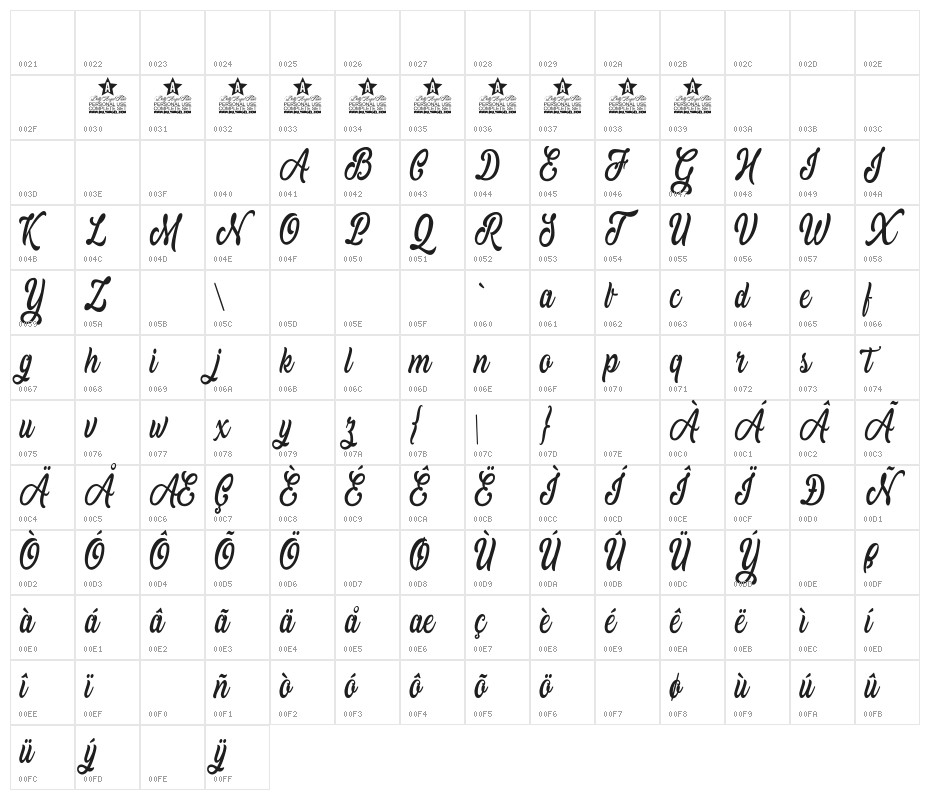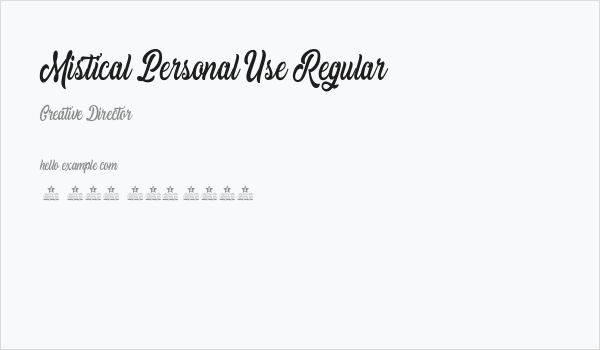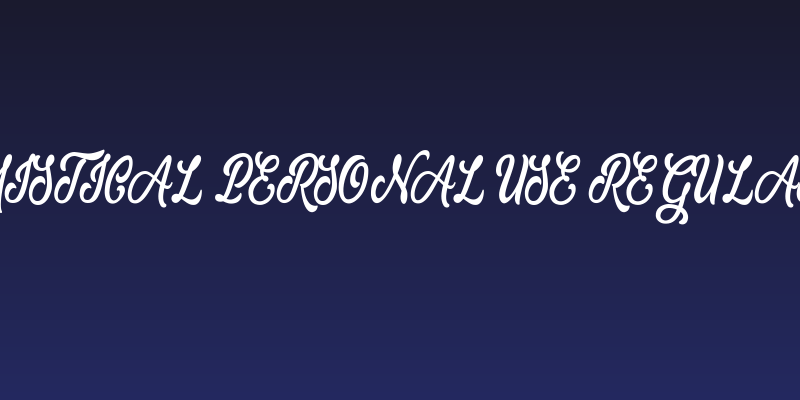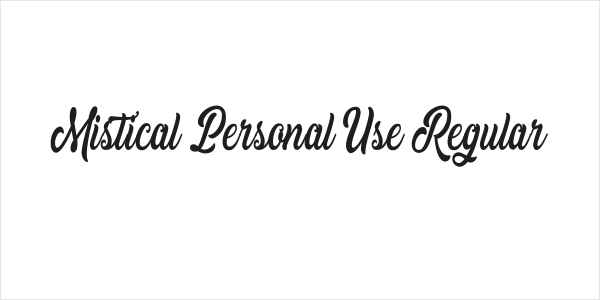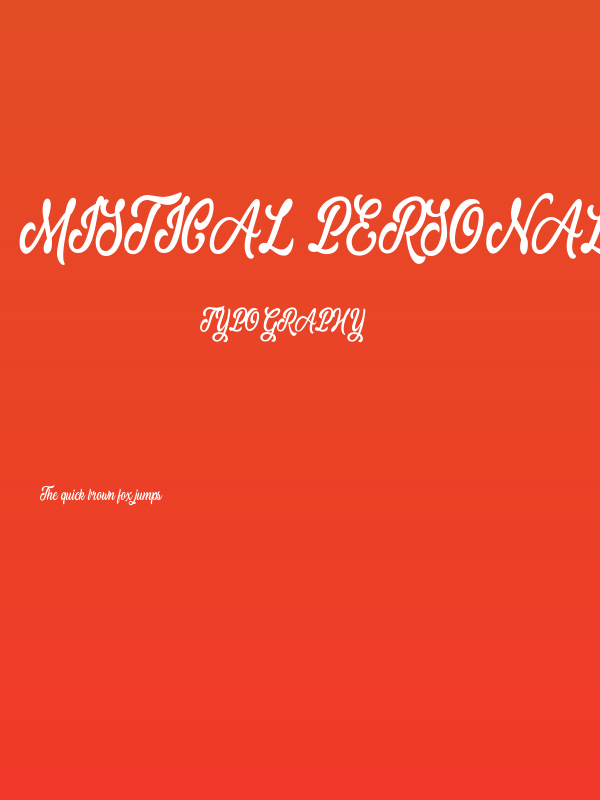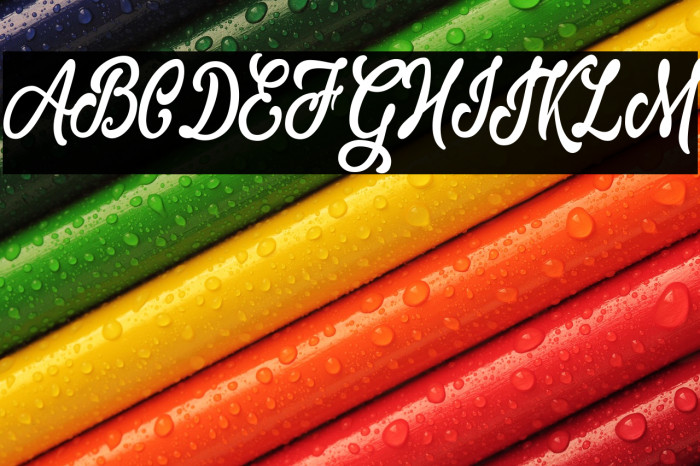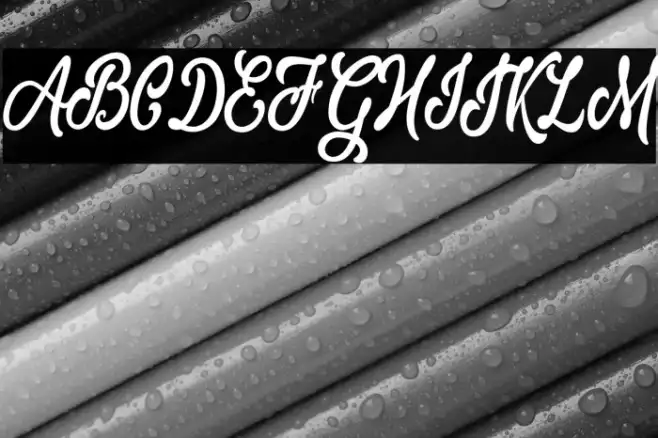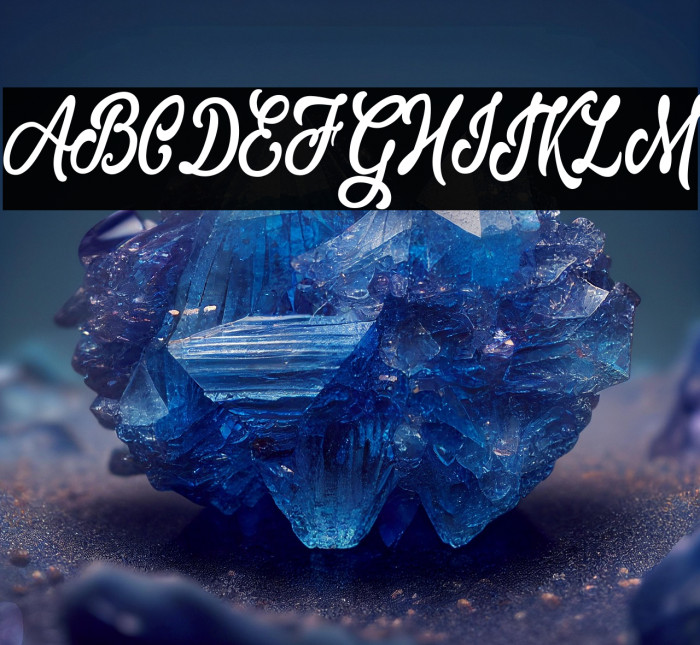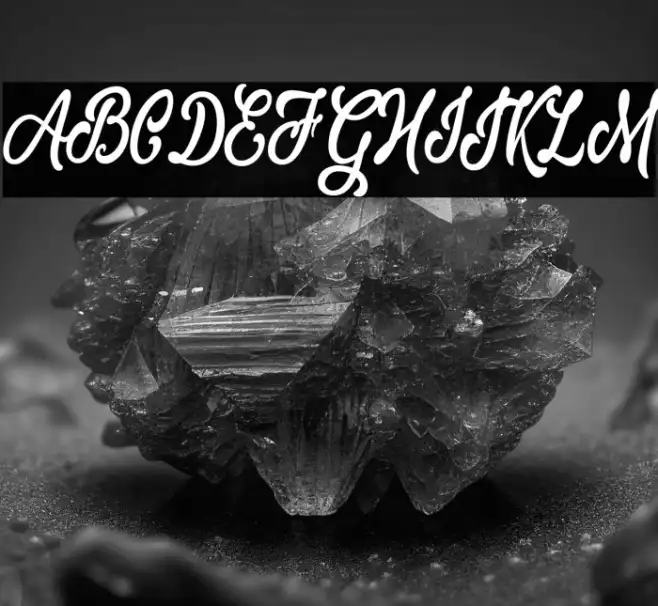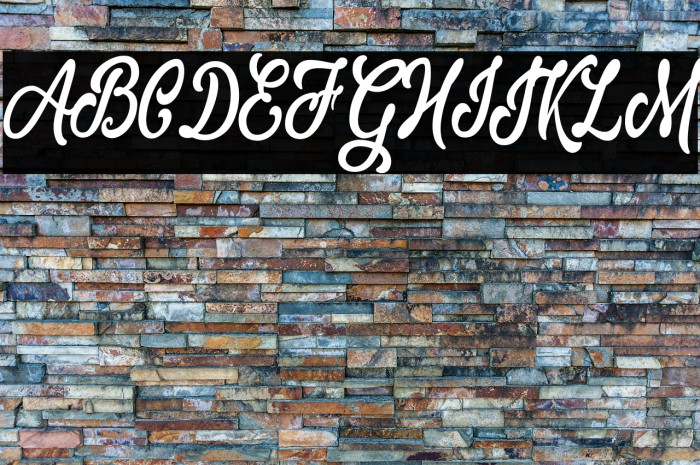
Mistical Personal Use Regular Font
Mistical Personal Use Regular Description
This font exhibits a flowing, cursive style with elegant loops and swashes, creating a sense of sophistication and grace. The uppercase letters are particularly ornate, featuring intricate curves and flourishes that add a decorative touch. The lowercase letters maintain a cohesive style, with smooth connections between characters, enhancing readability while retaining an artistic flair. The numerals and special characters are designed to match the overall aesthetic, making this font versatile for various design needs. Its script nature gives it a handwritten feel, ideal for adding a personal touch to any project.